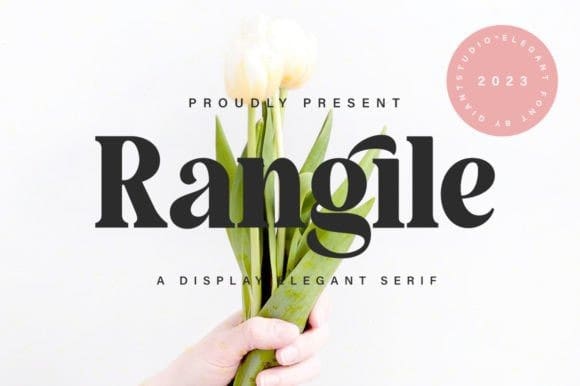
Rangile Font
Rangile Font is a cool serif font with a classy and modern style that makes it look elegant, natural, and stylish.
Rangile will be perfect for invitations, logos and branding, advertising, watermarks, social media posts, product packaging, product designs, labels, stationery, special events, and more!